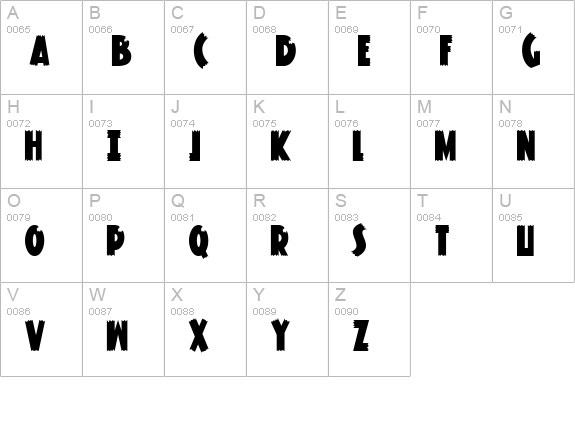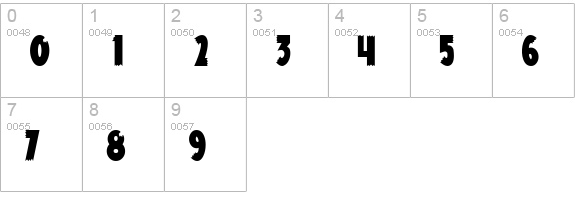
Introducing Knuckle Sandwich Classic font - a bold and dynamic typeface that exudes a sense of strength and attitude. With its unique blend of sharp edges and thick strokes, this font is perfect for creating eye-catching designs that demand attention. Knuckle Sandwich Classic font is a versatile choice for a variety of projects, from posters and branding to merchandise and social media graphics. Its vintage-inspired look adds a touch of nostalgia while still maintaining a modern edge. Best of all, Knuckle Sandwich Classic font is available for free download at FontsMarket.com. Whether you're a designer looking to add a punch to your projects or simply a fan of standout typography, this font is sure to make a statement. Download it today and let your creativity run wild with Knuckle Sandwich Classic font.